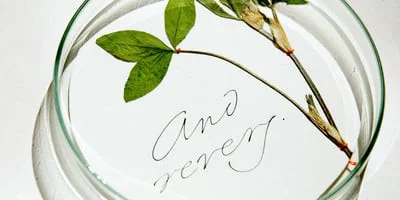
Emily In White Font
Emily In White Font is an exquisite choice for projects that demand a sense of delicate elegance, feminine grace, and a distinctly romantic, handcrafted aesthetic. It's perfectly suited for wedding stationery, sophisticated event invitations, personalized gift tags, charming blog headers, and any design where you want to evoke a feeling of purity, gentle beauty, and bespoke charm. Imagine it adorning a beautifully designed bridal shower invitation, adding an ethereal touch to a baby announcement, or giving a distinctive, heartfelt personality to a handcrafted product's label. Its flowing lines and graceful ligatures ensure your message is conveyed with both profound beauty and undeniable allure.
What makes Emily In White Font so exciting is its remarkable ability to blend the natural flow of handwritten script with a refined, airy quality that feels both intimate and elegant. It captures the essence of a heartfelt personal touch, making it ideal for designs that aim to feel tender, authentic, and genuinely memorable. This font isn't just about conveying text; it’s about creating an atmosphere of gentle romance and delicate artistry, bringing a sense of spontaneous creativity and genuine character to your visuals. It's the ideal tool for designers who want their work to feel personal, inviting, and truly stand out with a touch of charming individuality.
The Emily In White Font family typically offers variations that enhance its artistic versatility, often including a standard "Regular" weight that showcases its beautiful script and potentially stylistic alternates, swashes, or ligatures for extensive customization. These features allow for creating truly unique typographic compositions, ensuring that the Emily In White Font can be the cornerstone of a truly unique and powerfully thematic visual identity, helping your designs stand out with an undeniable sense of character and profound elegance.